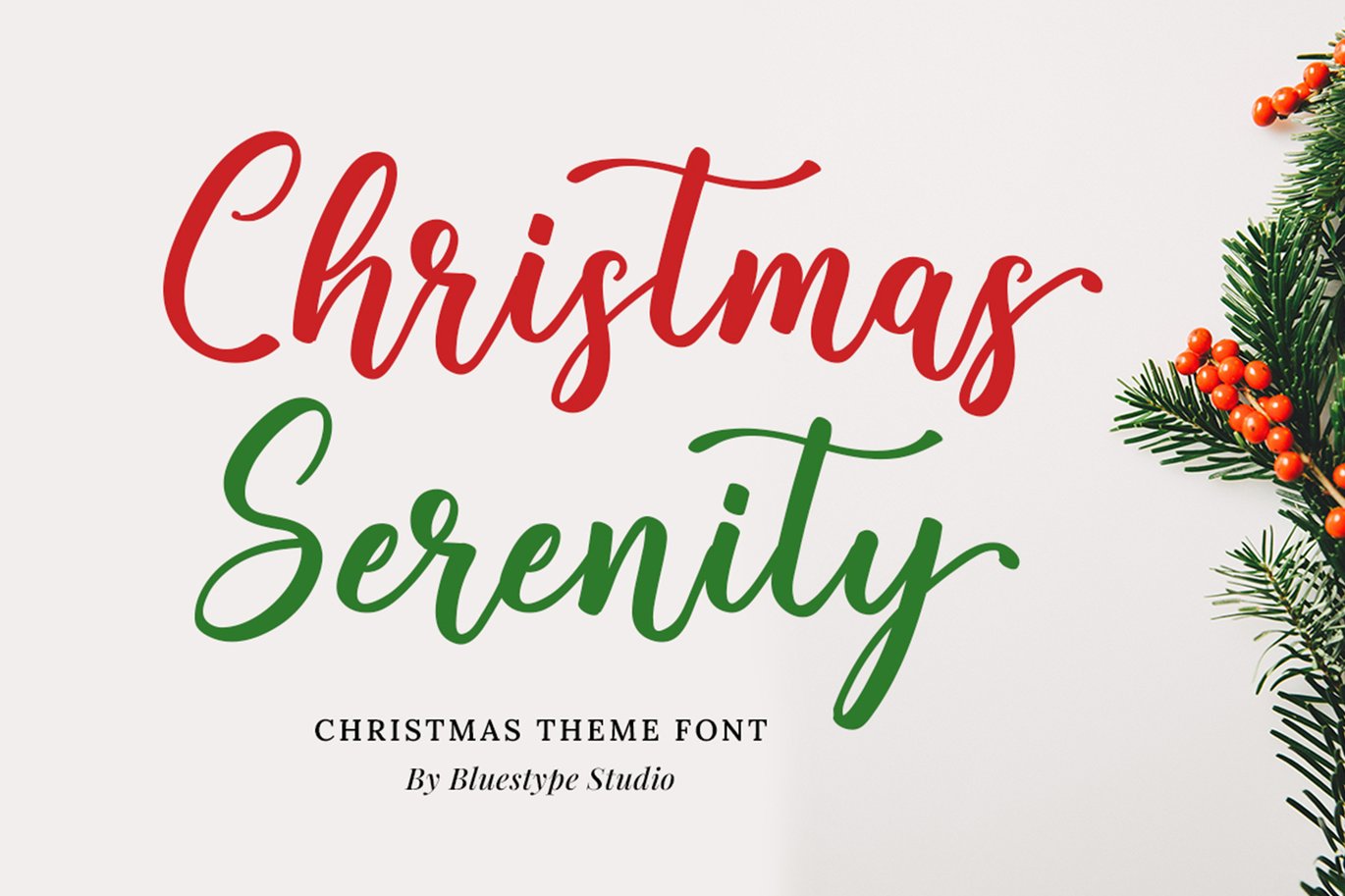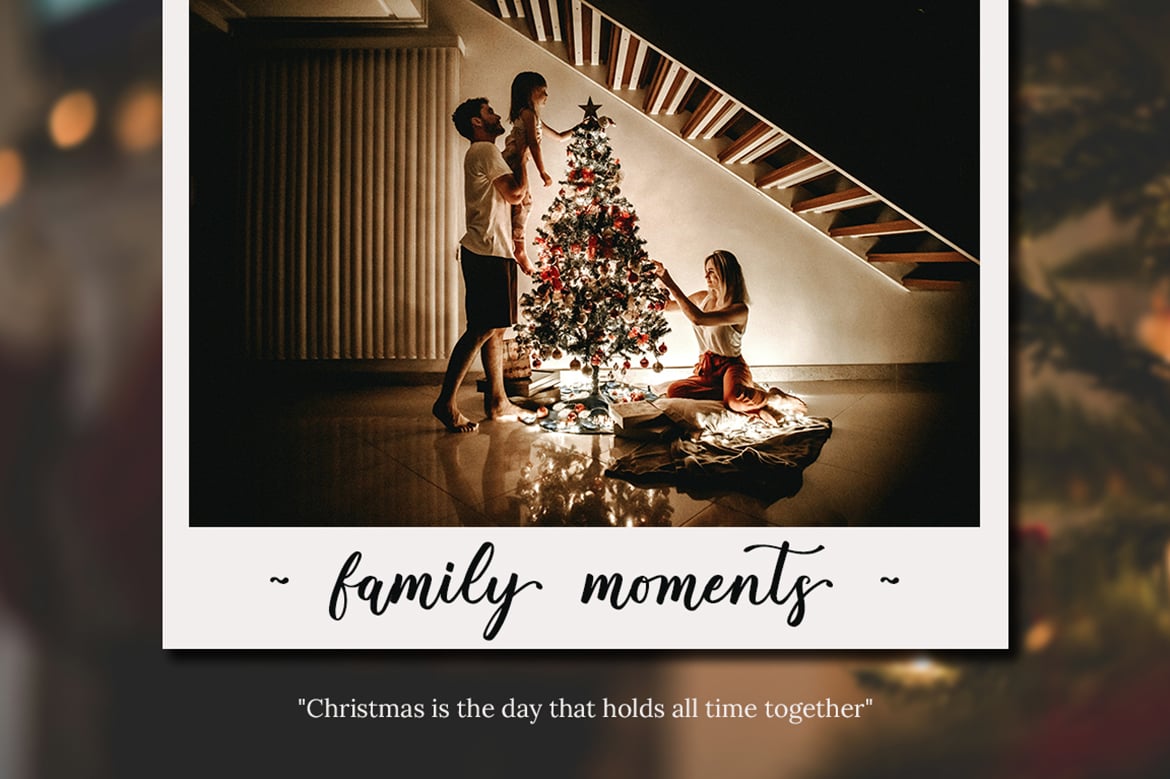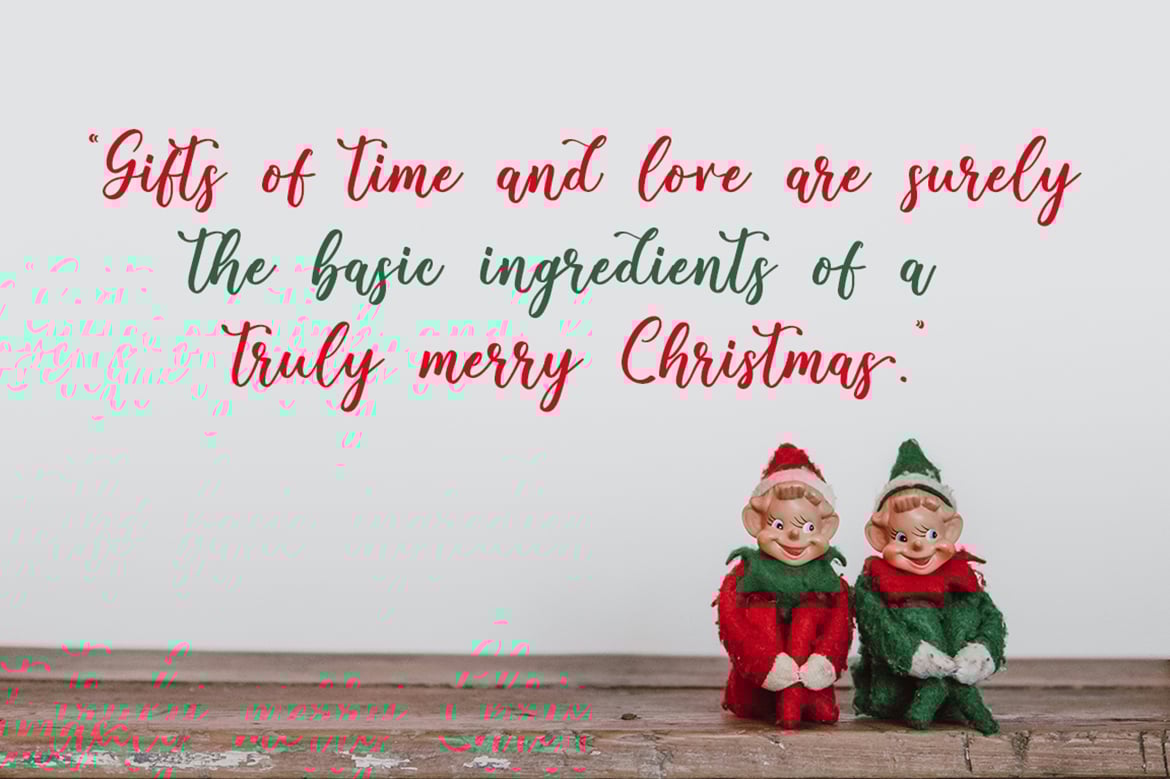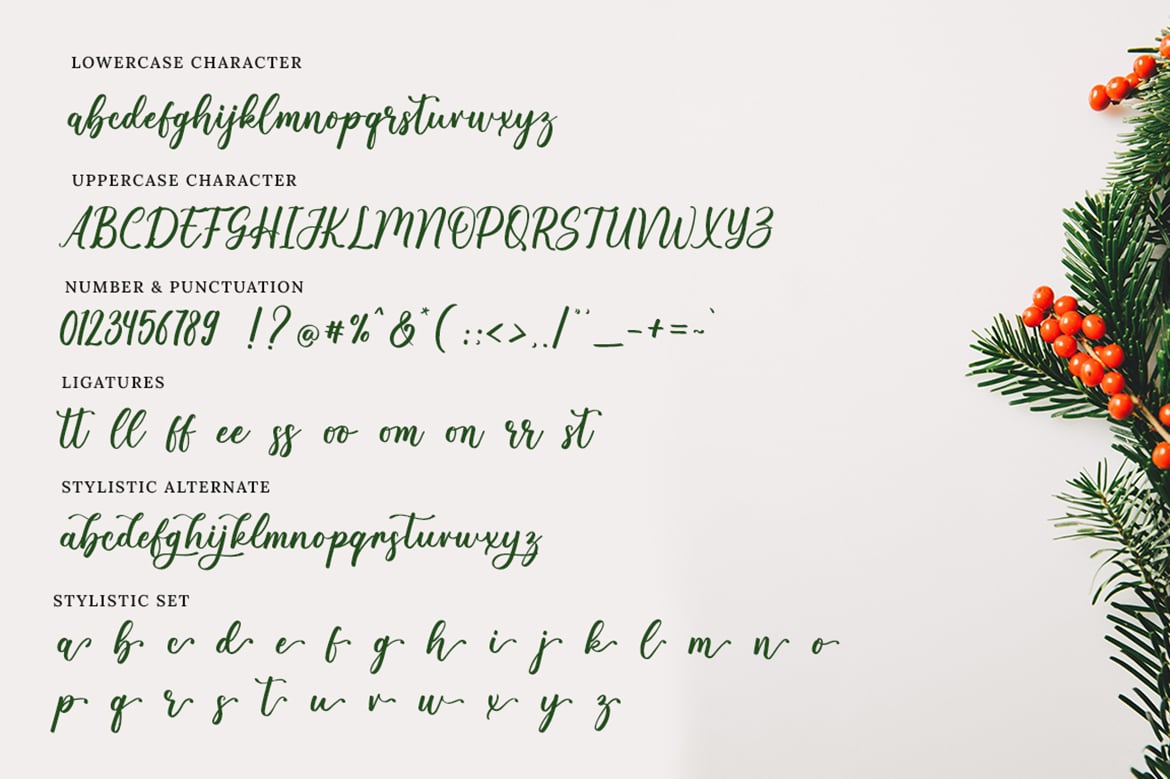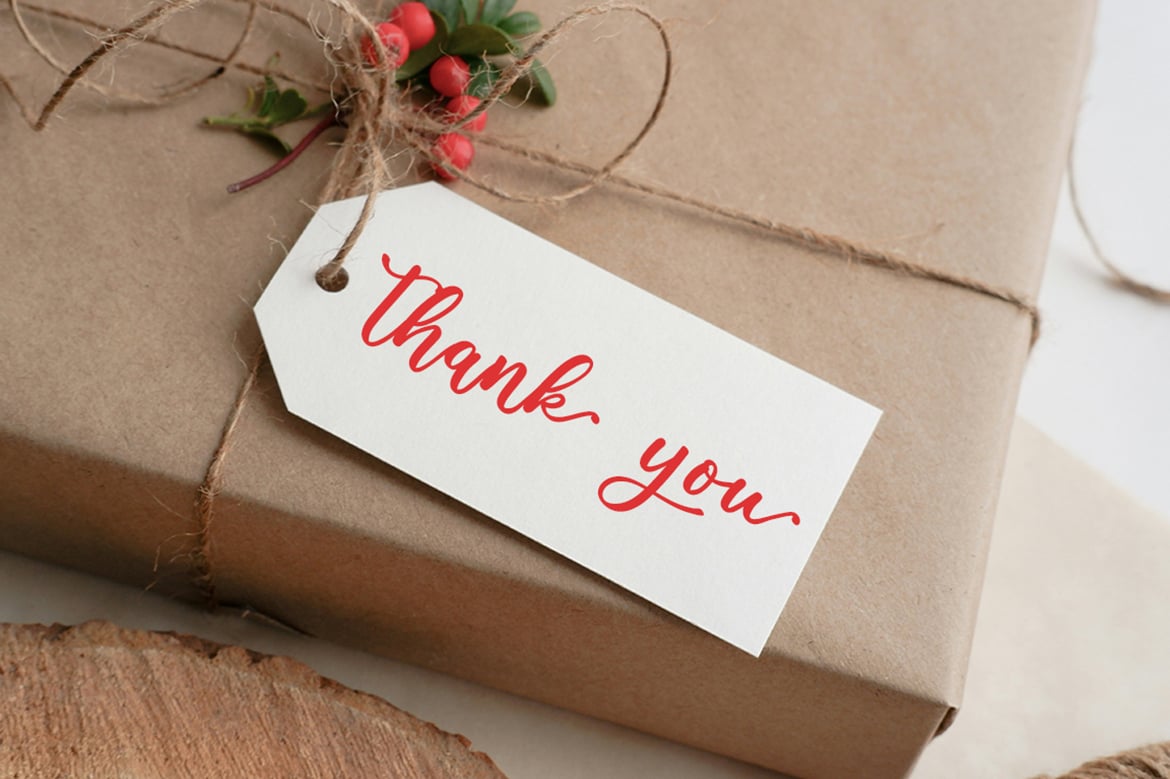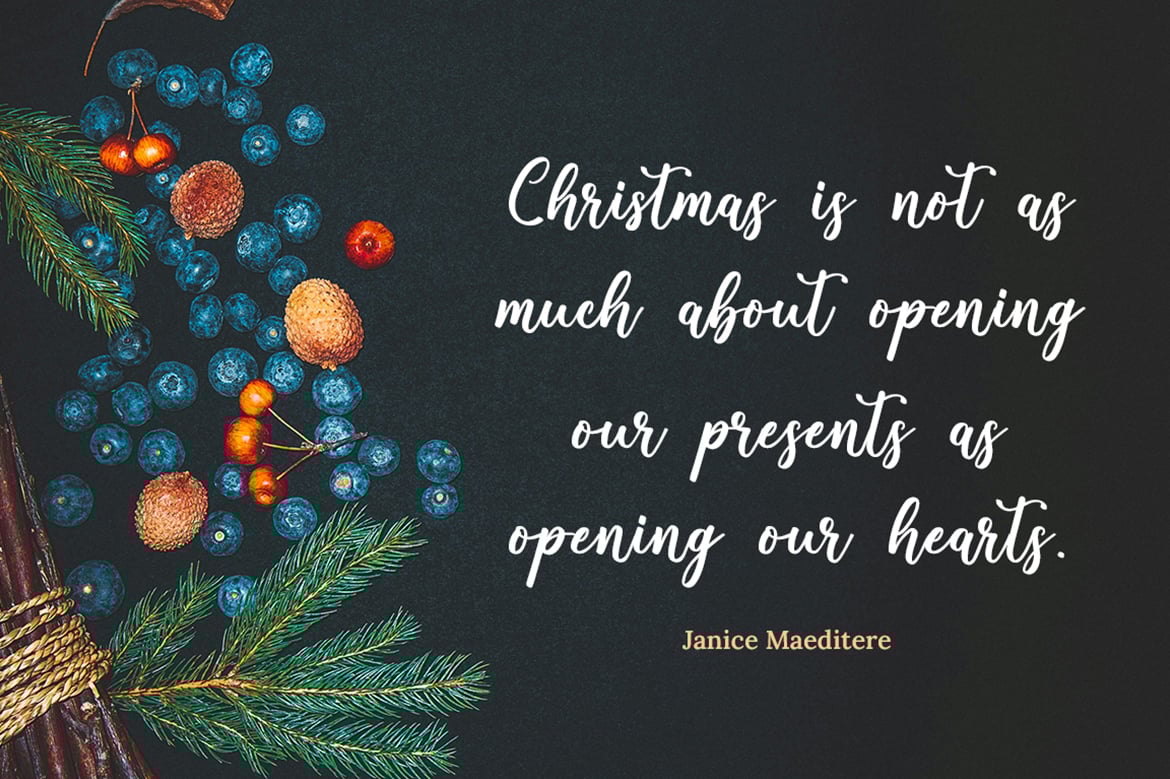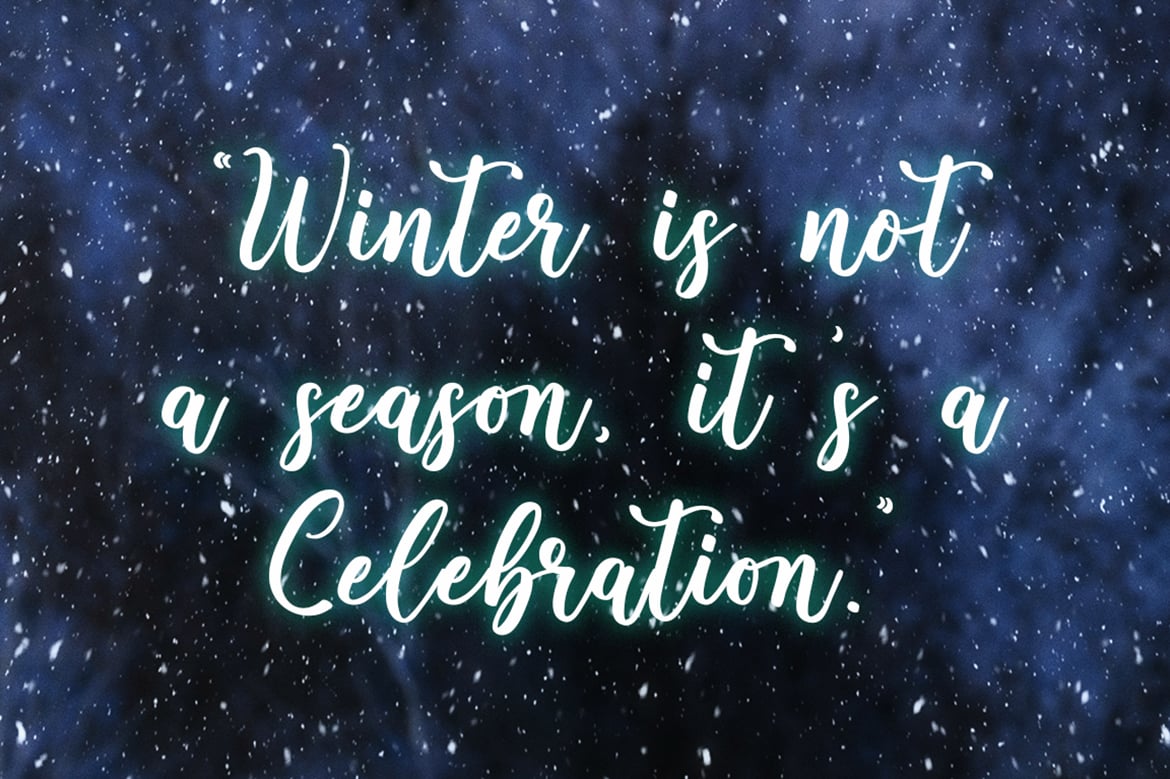
Christmas Serenity – Christmas Font
Introducing Christmas Serenity – Christmas Theme Font
Christmas Serenity is a delightful calligraphy-style font that captures the warmth and joy of the Christmas season. Its elegant, flowing strokes and festive charm make it perfect for holiday cards, seasonal invitations, decorative prints, and more. Let the spirit of Christmas shine through your designs with the enchanting touch of Christmas Serenity.
Christmas Serenity brings a sense of celebration and serenity to every creation. Let this font infuse your work with the spirit of the holidays, spreading cheer and beauty with every letter.
- Stylistic Set
- Stylistic Alternate